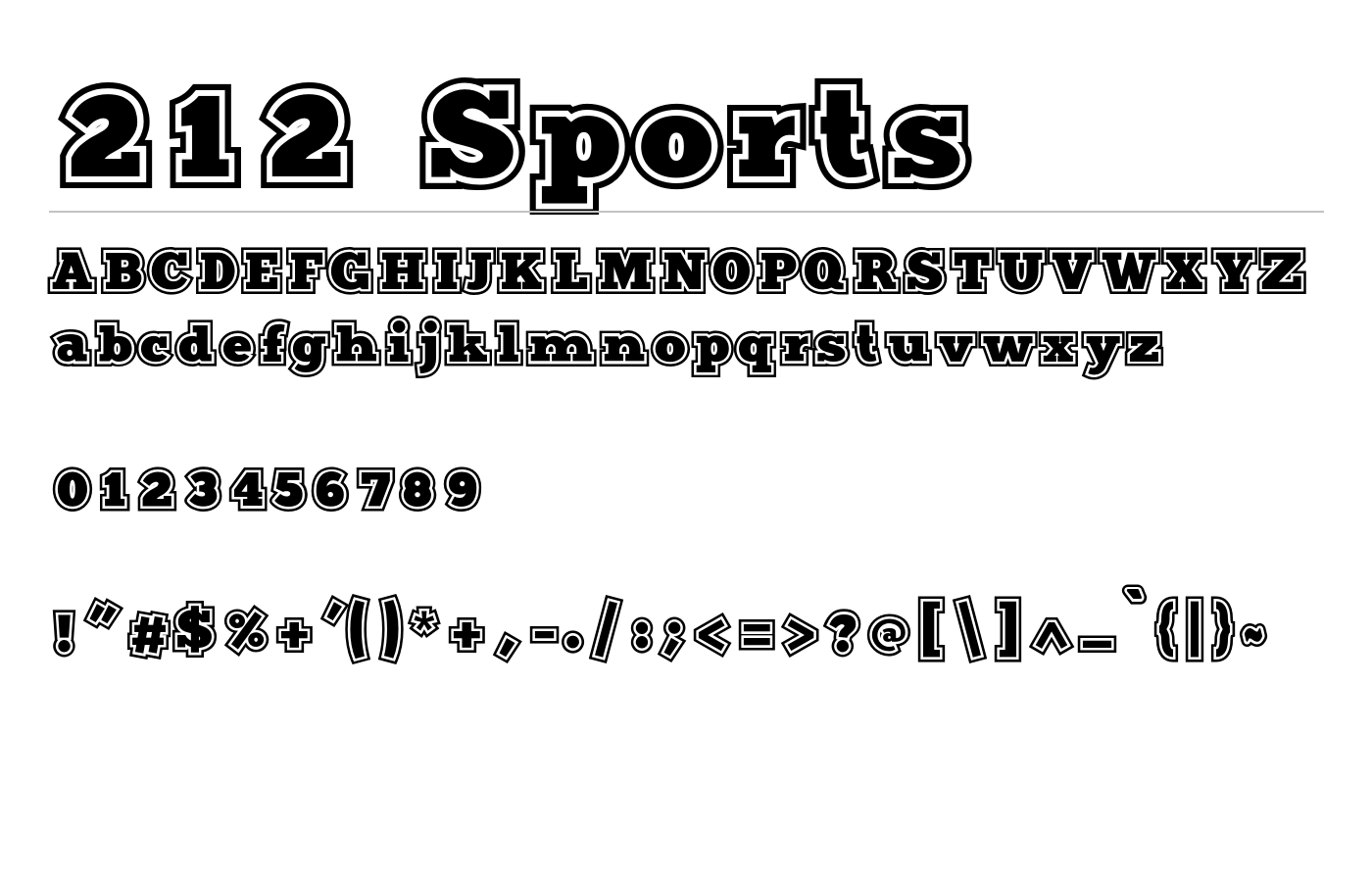
212 Sports Font is a bold, slab serif typeface with a strong, athletic vibe perfect for sports branding and energetic designs. Its heavy weight, blocky letterforms, and outlined style create a dynamic, vintage-inspired look that grabs attention instantly. This font works great for logos, headlines, posters, and any project aiming to evoke strength, competition, and team spirit.
212 Sports Font
About 212 Sports Font
| Font family | 212 Sports Font |
| Designer | Elizabeth McLain |